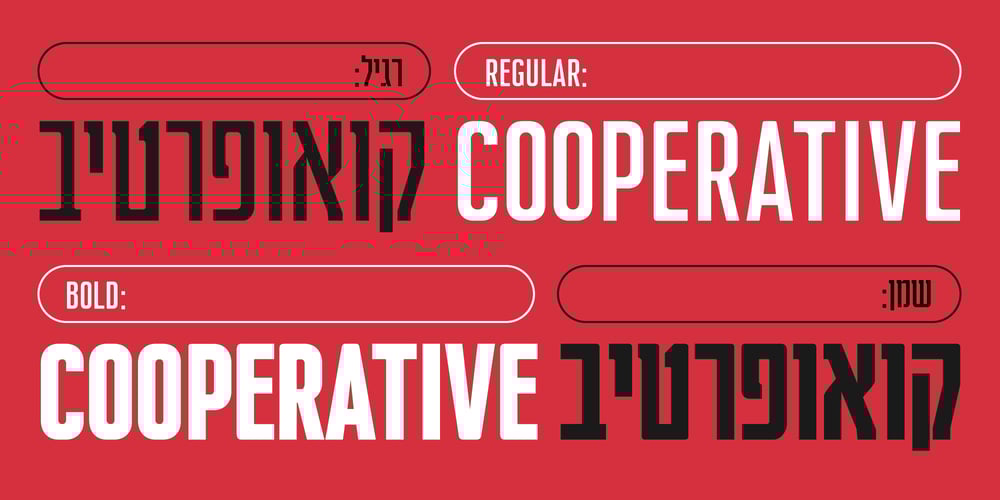
Cooperative Font Family was designed by Ben Nathan and published by Hafontia. Cooperative contains 4 styles and family package options. Cooperative is a retro style poster font in Hebrew and Latin. Is based on a printed example of a vintage handmade wood type from the 1950’s. This sans serif font is available in both regular and bold versions, with a dirty and grungy styles as well in regular and bold.